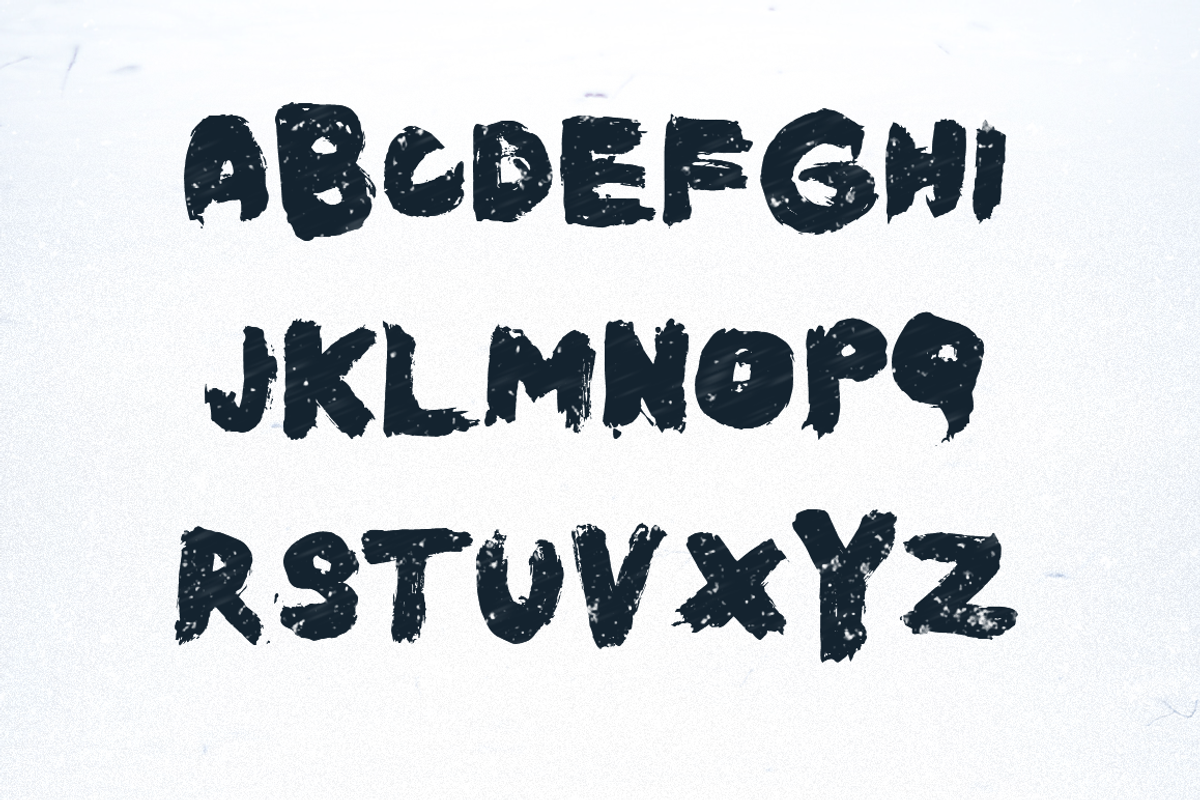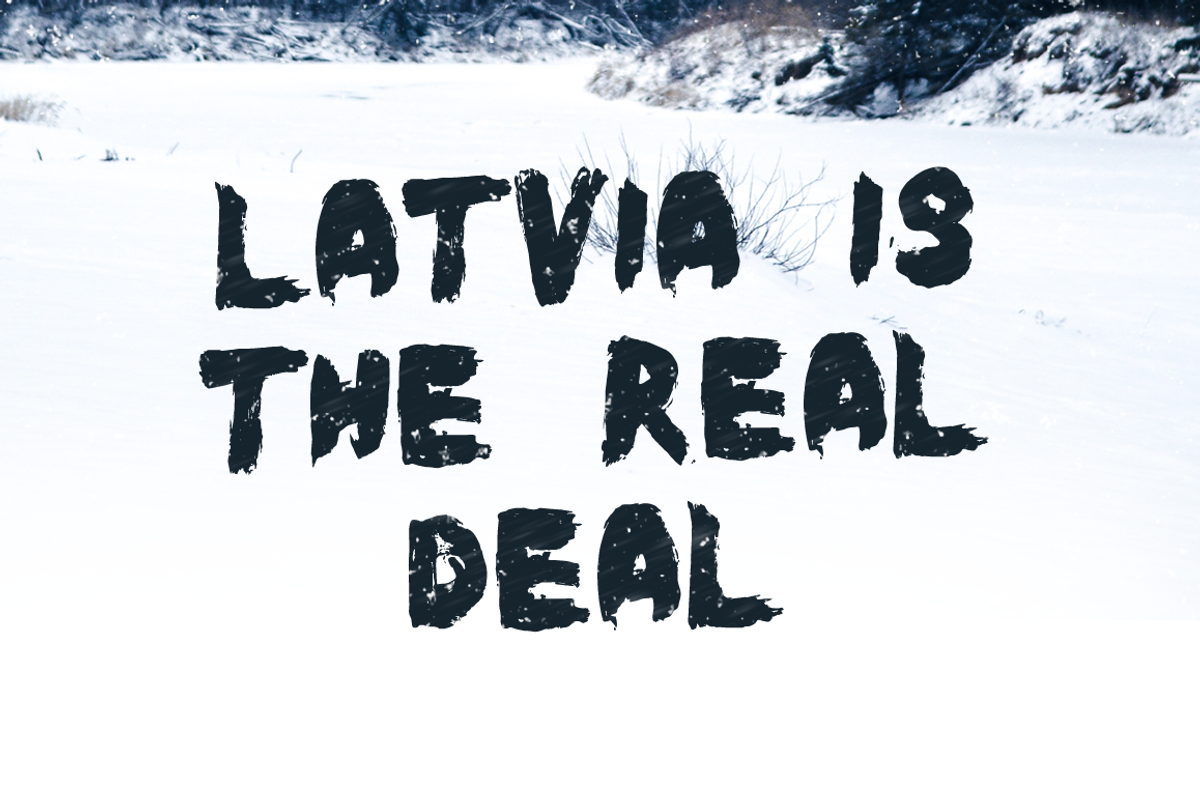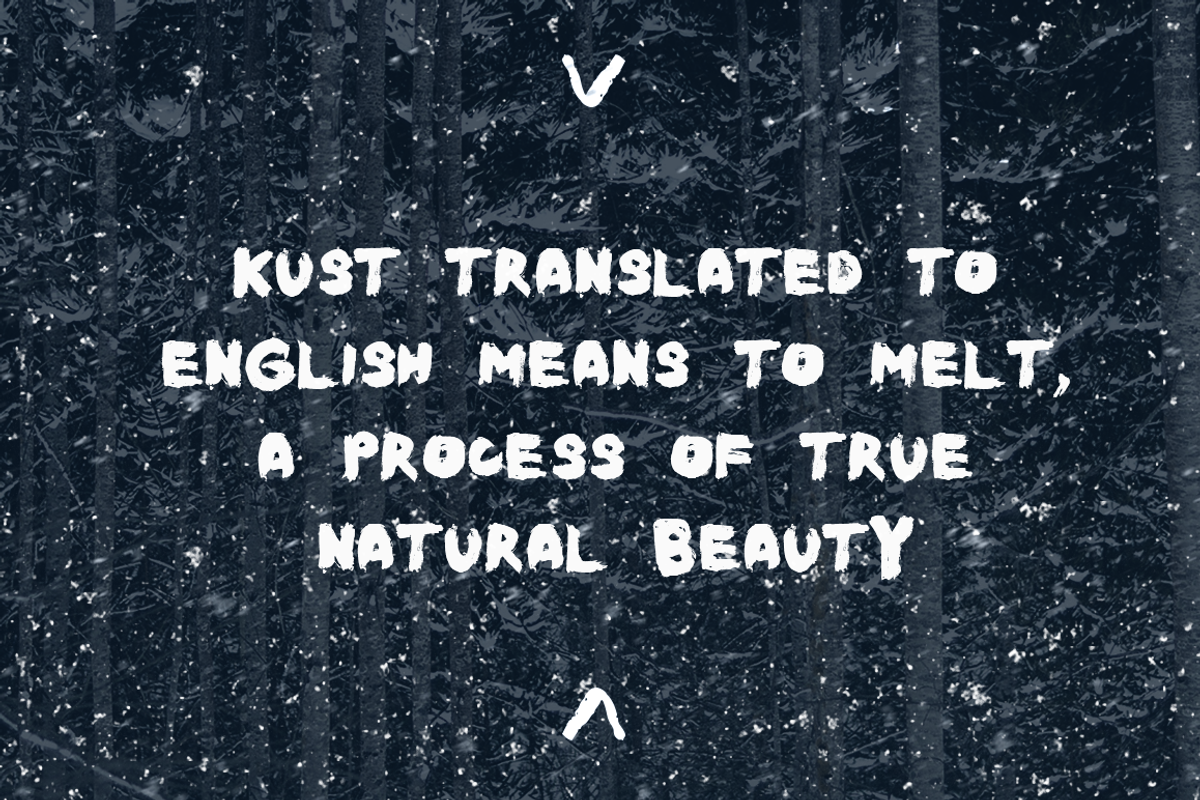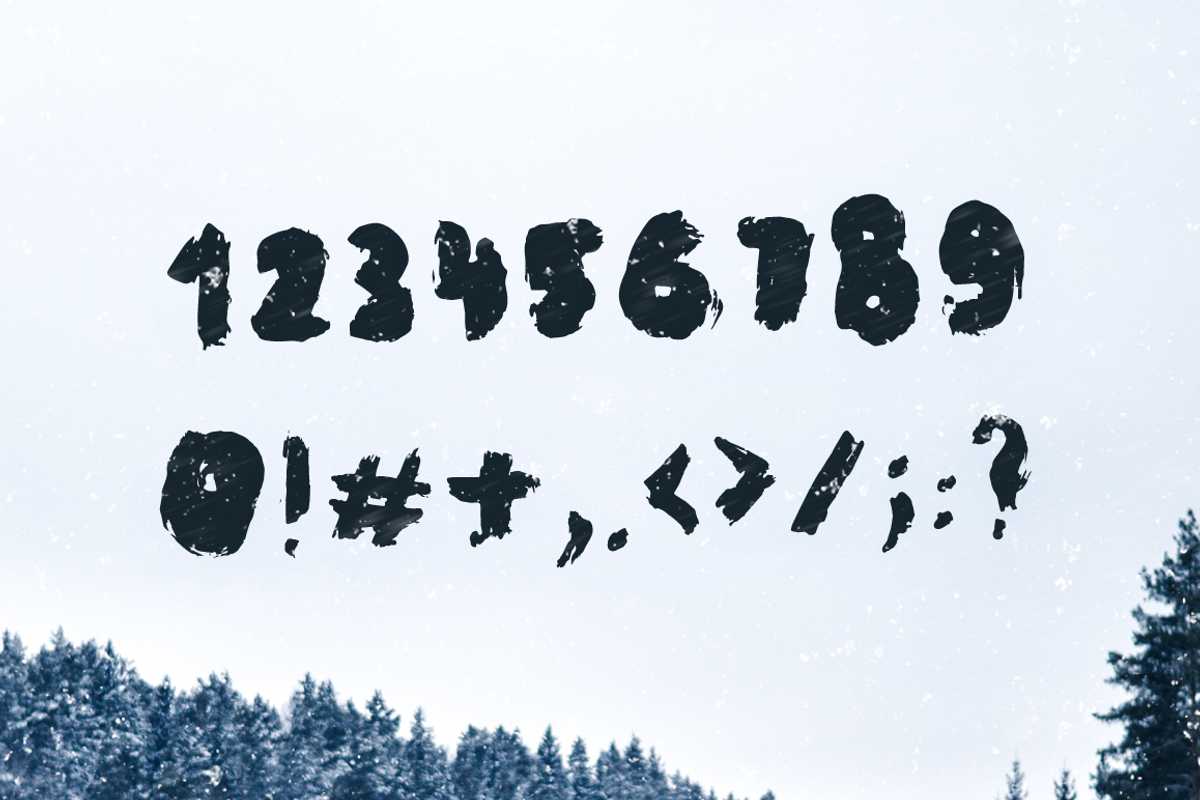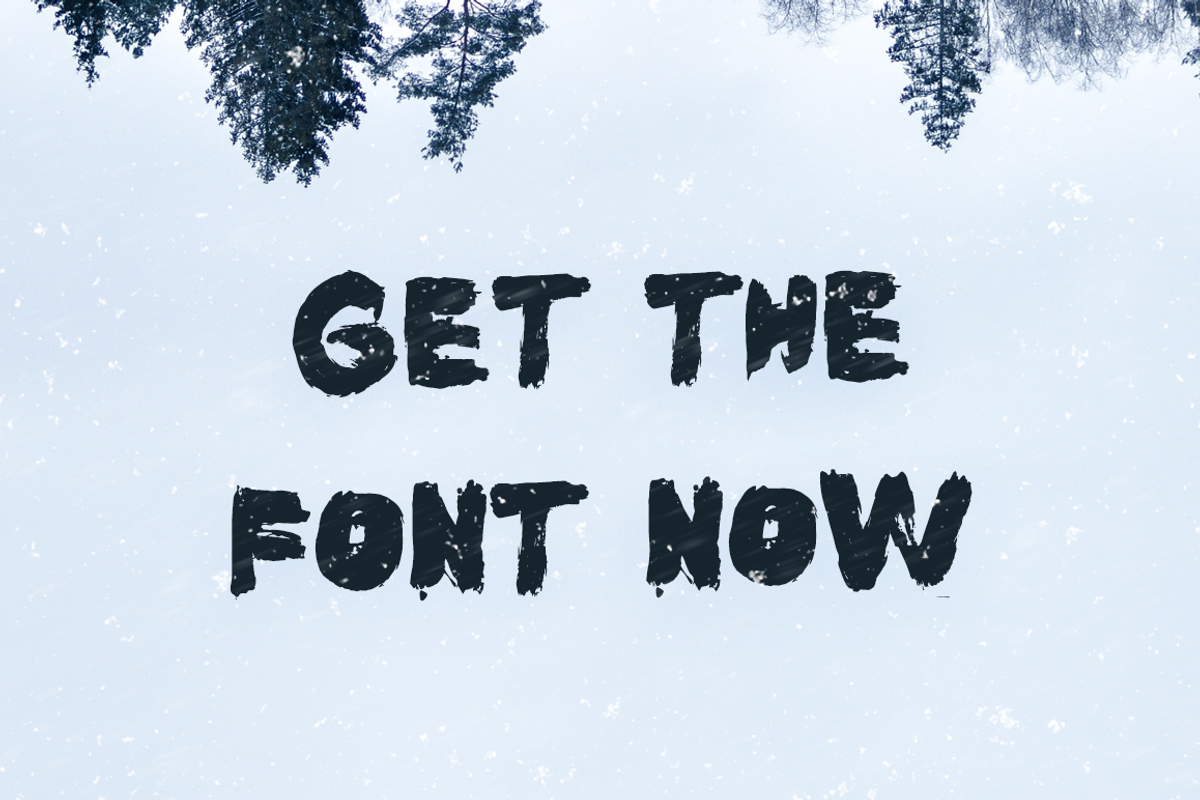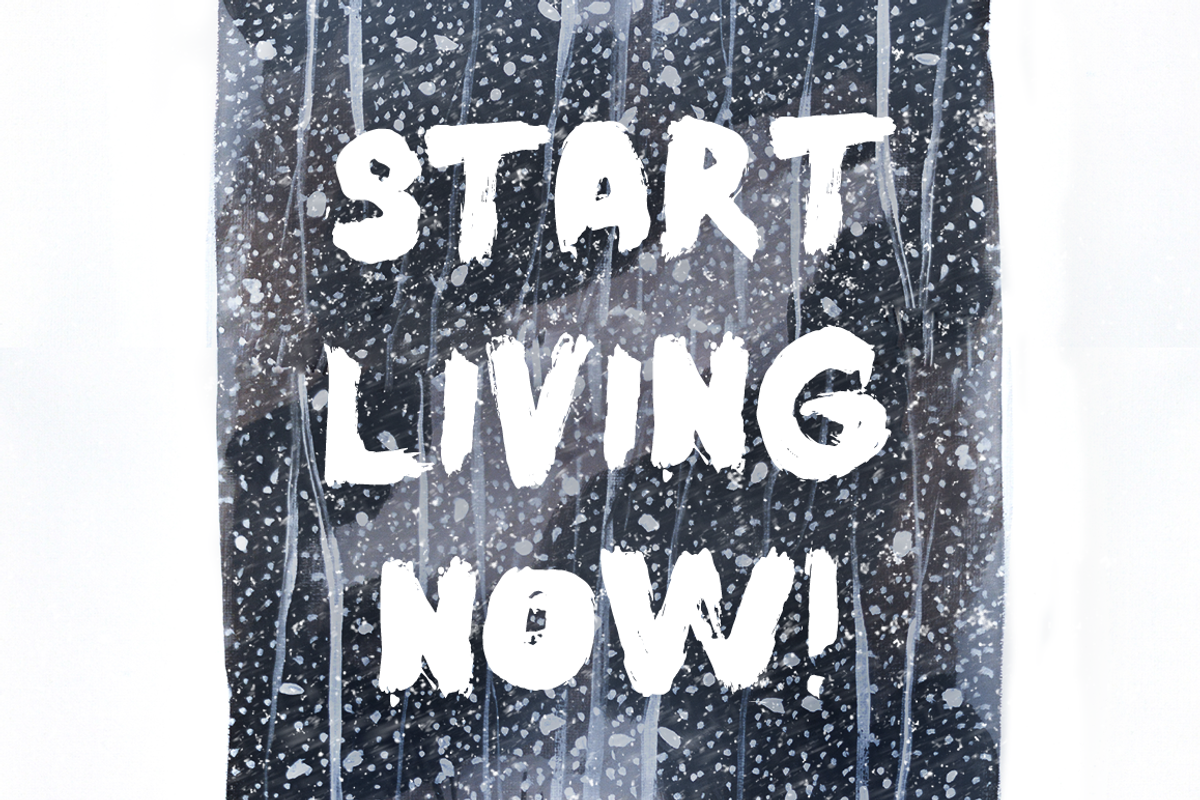
Kust Extended Brush Font
Kust Extended Brush Font by Wild Ones is a font selected for branding, posters, packaging, typography.
- Now Kūst has more than 430 characters and is also available as latin pro and cyrillic.
Why Kust Extended Brush Font is worth a look
Kust Extended Brush Font by Wild Ones fits naturally into Branding, posters, packaging, typography.